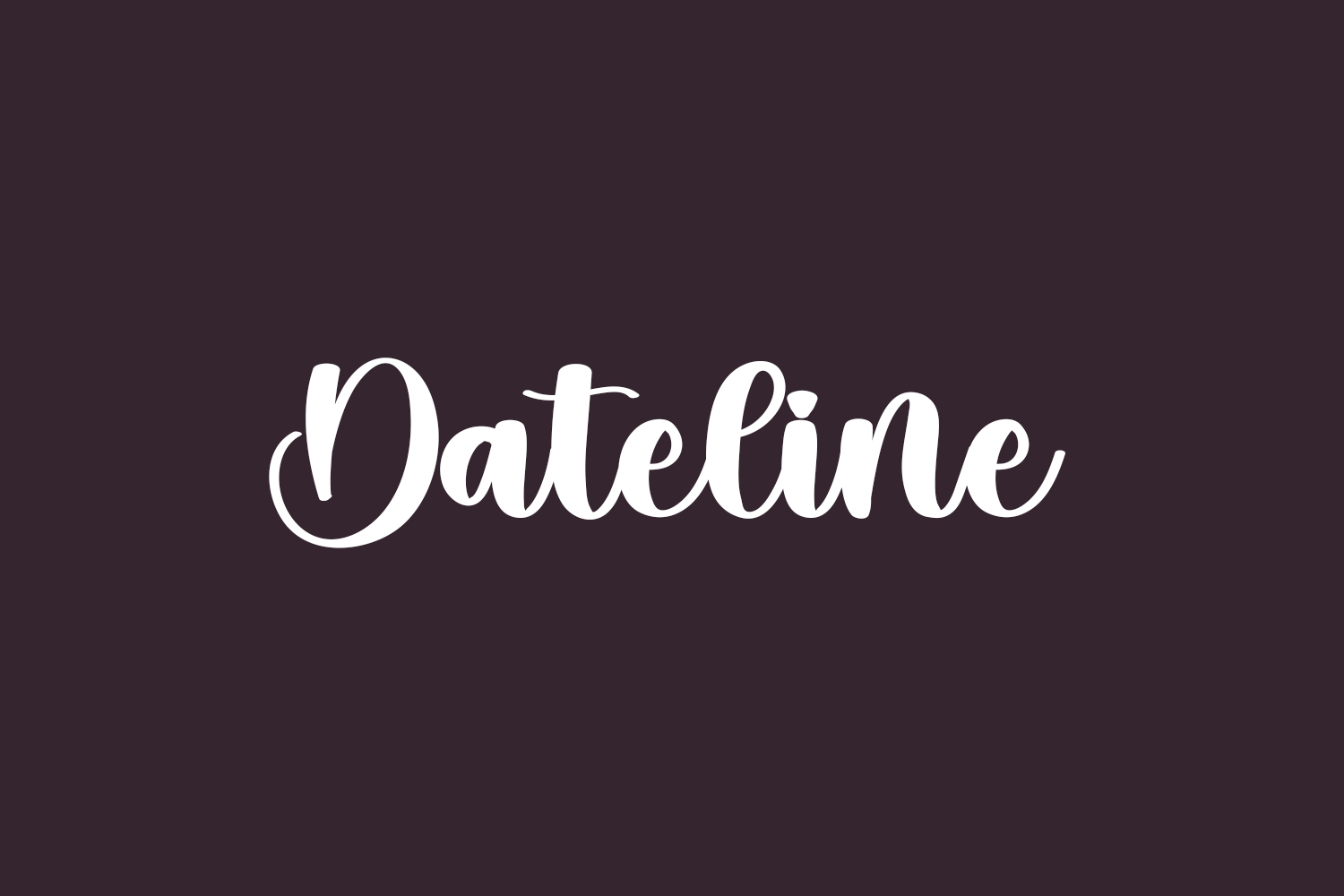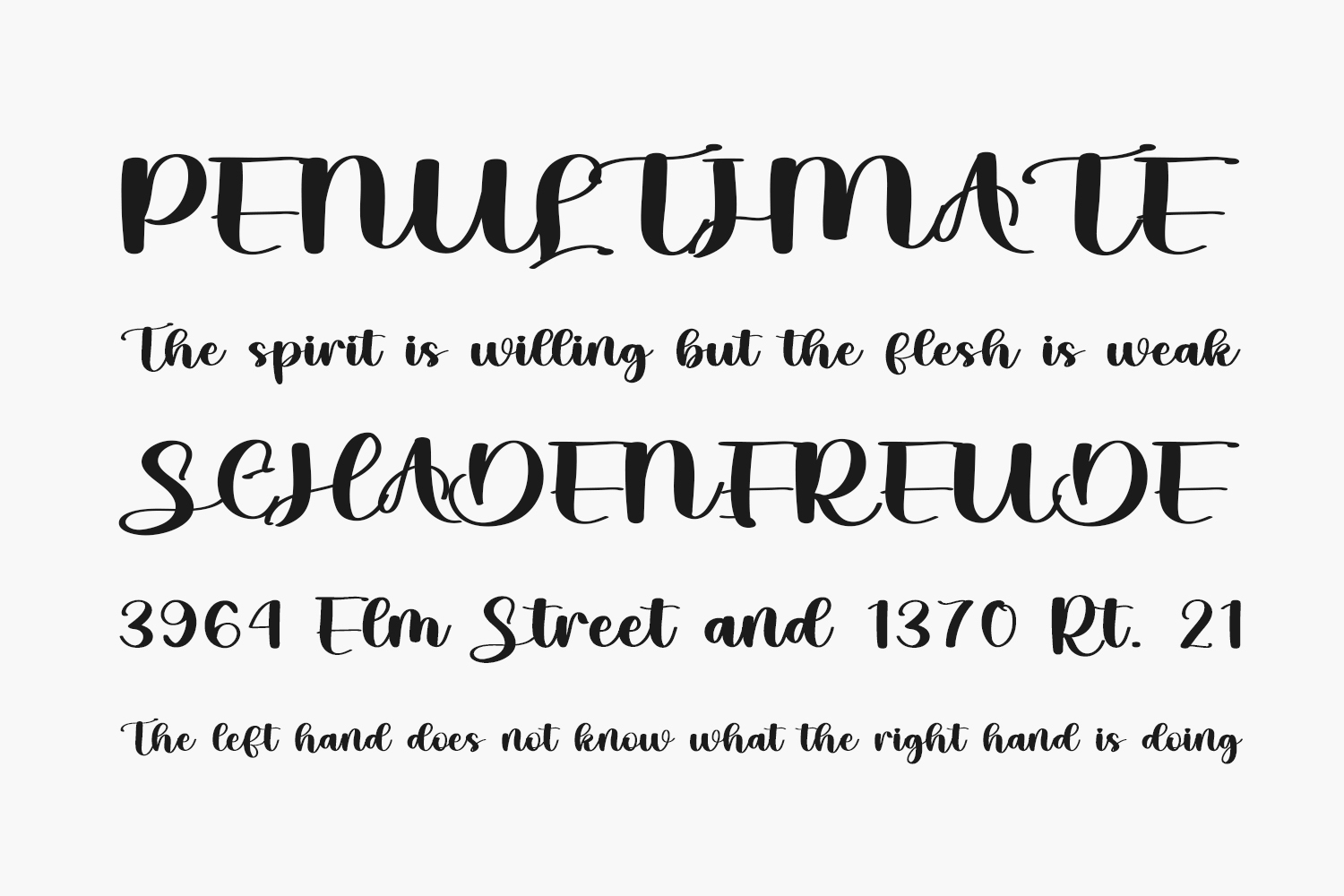
Introducing Dateline Free Font, a chic handwritten font boasting a modern vibe and flawless structure, drawing inspiration from timeless classic calligraphy. Elevate your design projects with a touch of grace and sophistication. Dateline Free Font is free for personal use only. Please purchase the full version for commercial use.
Designed by Inermedia Studio